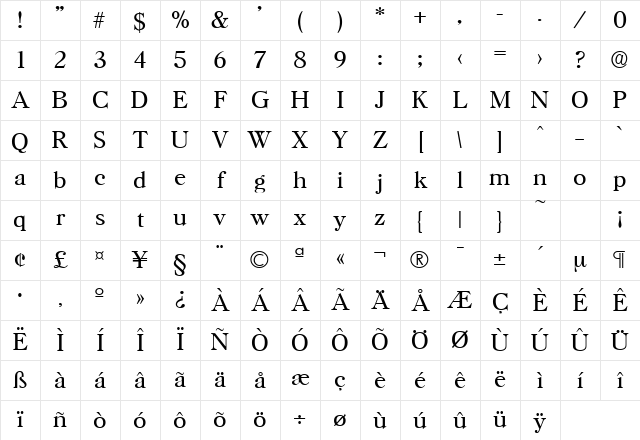
Horsham-Serial-Light Regular
Design Context for Horsham-Serial-Light
Horsham-Serial-Light is a composed and adaptable typeface that performs quietly and consistently across a wide range of design contexts. Its slender proportions lend an understated elegance to any composition.